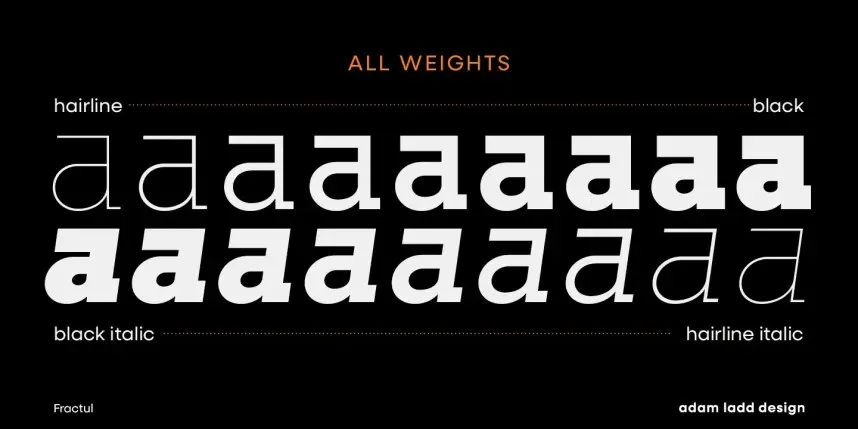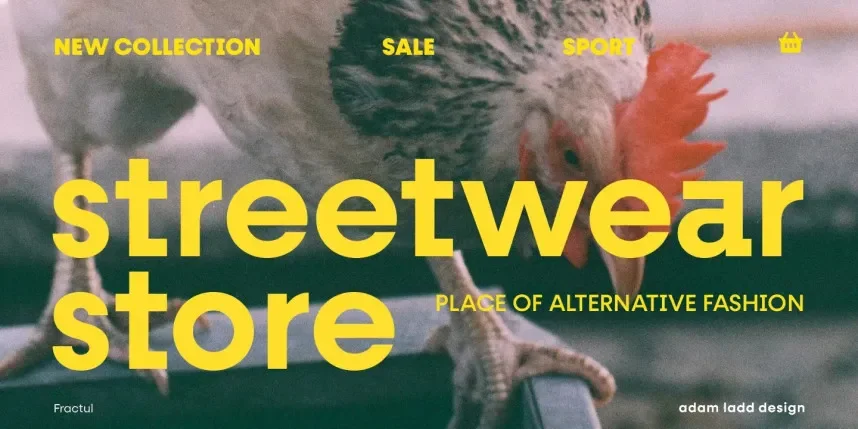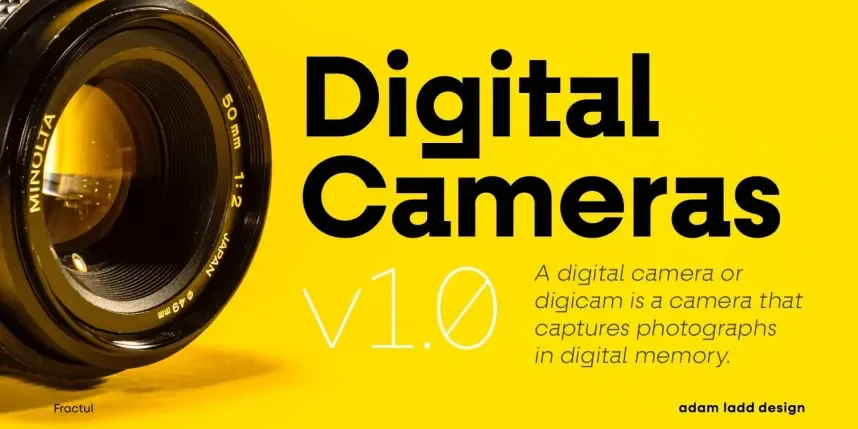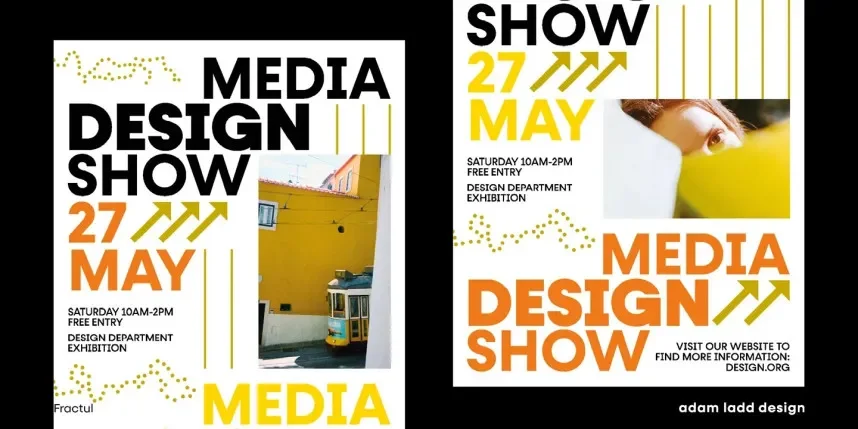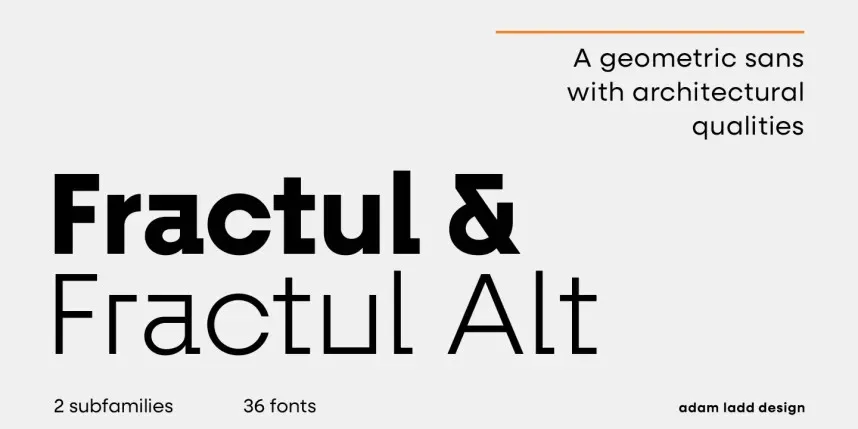
Fractul and Fractul Alt Font Family addresses the need for sharp, structured typography in display-focused projects where clarity at large sizes is required.
This font family is a display sans-serif, featuring angular letterforms, controlled stroke contrast, and alternative character sets in the Alt version. The design emphasizes structure over softness.